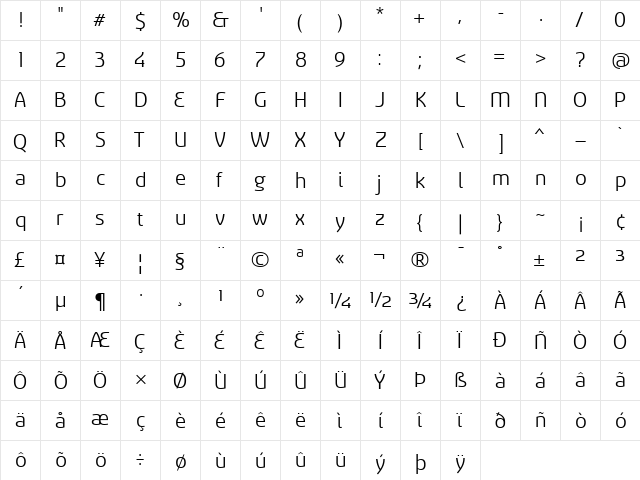
Sancoale Regular
Design Context for Sancoale Typeface
Sancoale is a composed and adaptable typeface that performs quietly and consistently across a wide range of design contexts.